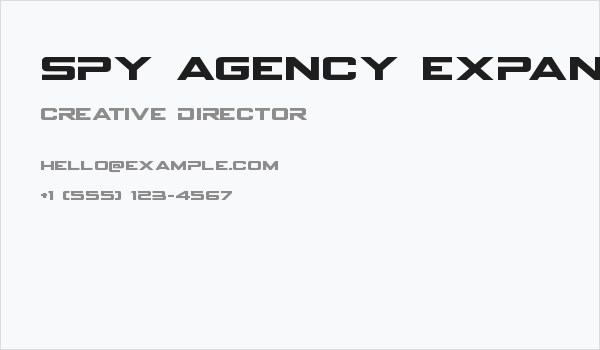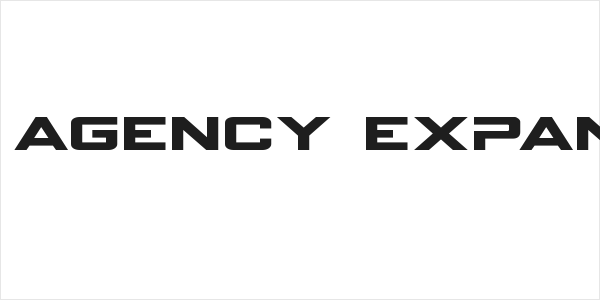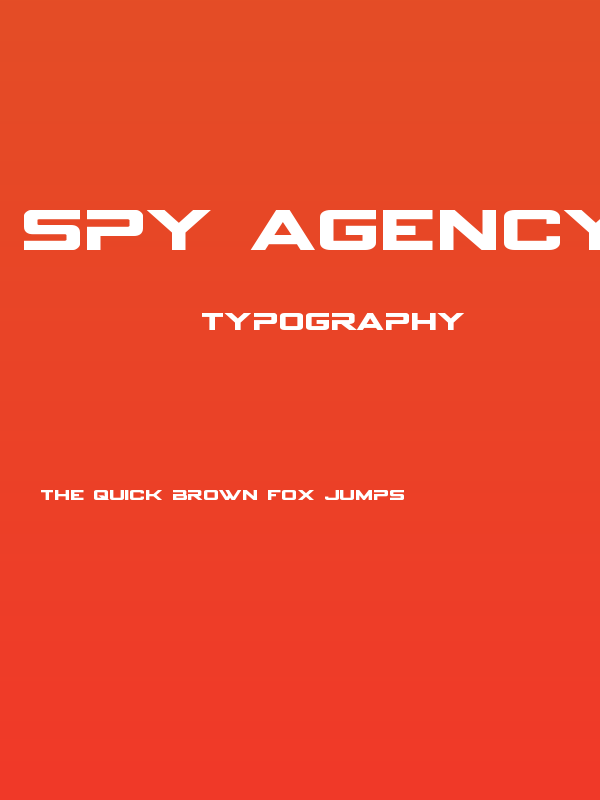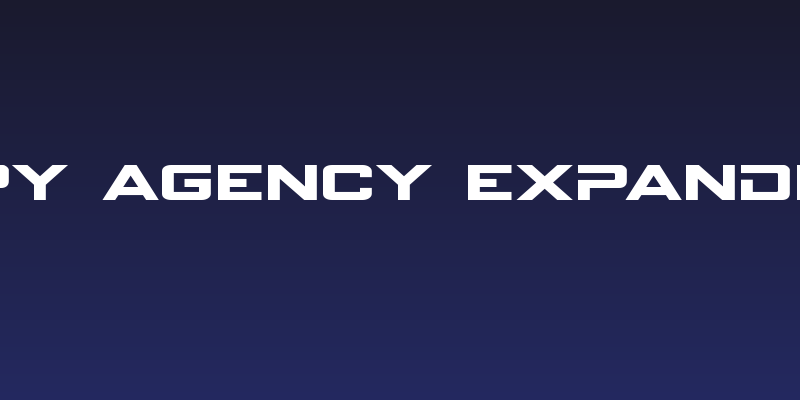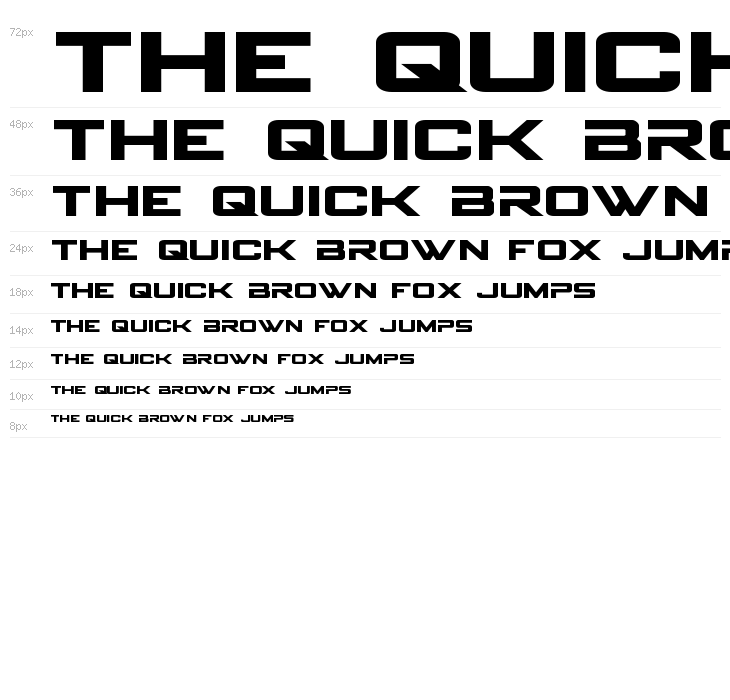
Spy Agency Expanded Font
Spy Agency Expanded Description
This font features a bold and futuristic design, characterized by its geometric and angular letterforms. The uppercase letters are uniform in height, with a strong presence and a slightly expanded width, giving it a modern and tech-inspired look. The numerals and special characters maintain the same boldness and angularity, ensuring consistency across all glyphs. The font's design is clean and legible, making it suitable for various digital and print applications where a contemporary and impactful style is desired.
| Proposed Projects | Ideal for technology branding, sci-fi themed projects, video game titles, and modern advertising campaigns. |